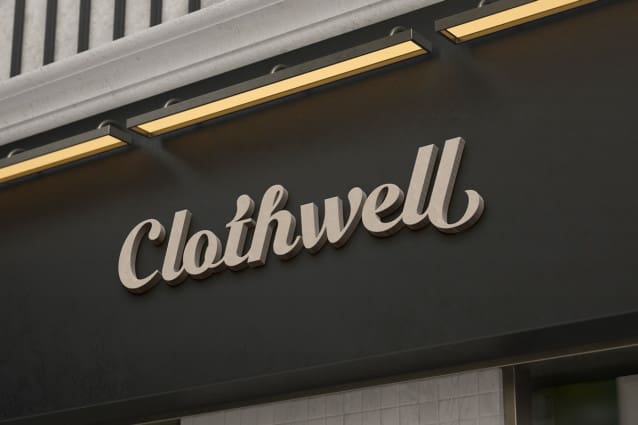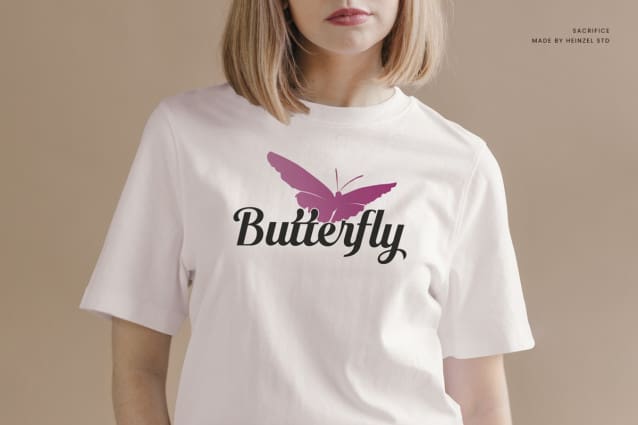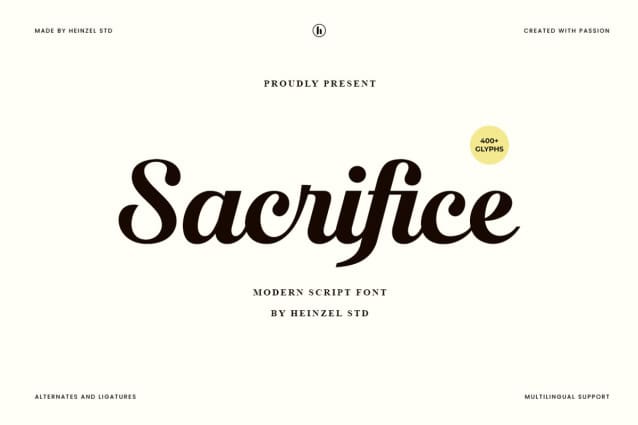
Sacrifice Script Font
Sacrifice Script Font is a script typeface with a vintage look. It has many alternate characters, swashes, ligatures, and tails. These alternates make Sacrifice very versatile. You can design beautiful, elegant, and diverse typographic elements with it. It’s well suited for logos, lettering artwork, t-shirt designs, editorial illustrations, and more.